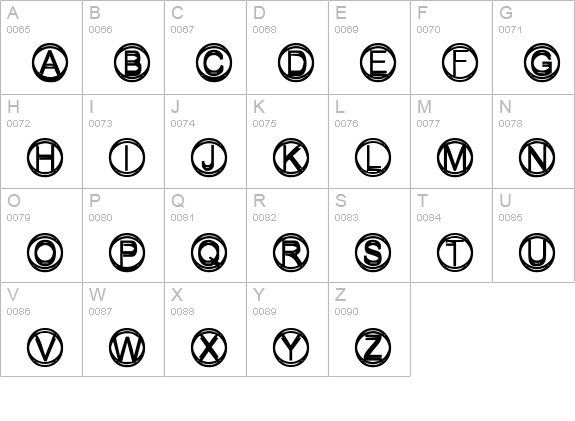
Knapp Font Details
Introducing Knapp font, a versatile and modern typeface that is perfect for adding a touch of elegance and sophistication to any design project. With its clean lines, balanced proportions, and unique letterforms, Knapp font is sure to captivate and engage your audience. This stunning font offers a wide range of weights and styles, allowing you to create various typographic compositions with ease. Whether you're designing a logo, website, or print materials, Knapp font will effortlessly elevate your design to the next level. But what makes Knapp font truly exceptional is that it is not only visually striking but also freely available for download. That's right, you can access this incredible font at absolutely no cost at FontsMarket.com. Now, you can enjoy the beauty and versatility of Knapp font without breaking the bank. FontsMarket.com is a reputable online platform that offers a vast collection of high-quality fonts, and Knapp font is just one of the many treasures you can find there. With its user-friendly interface and extensive library, FontsMarket.com makes it easy for designers, creatives, and enthusiasts alike to discover and access the fonts they need to bring their visions to life. So why wait? Enhance your designs with the timeless elegance of Knapp font today. Download it for free at FontsMarket.com and unlock a world of possibilities for your next project.